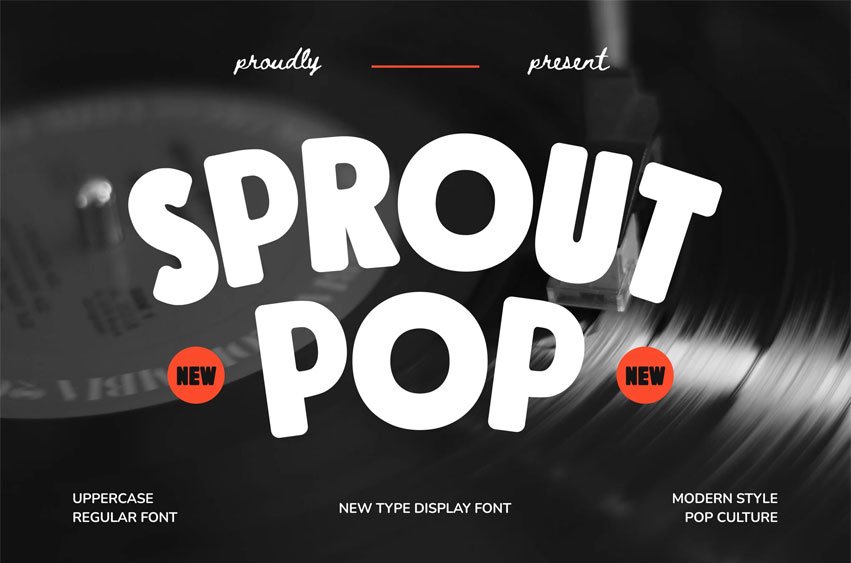
Sprout Pop Font is suitable for flyers, posters, novels, letterheads, or any design requirements you want to be awesome.
It will certainly amaze your readers.